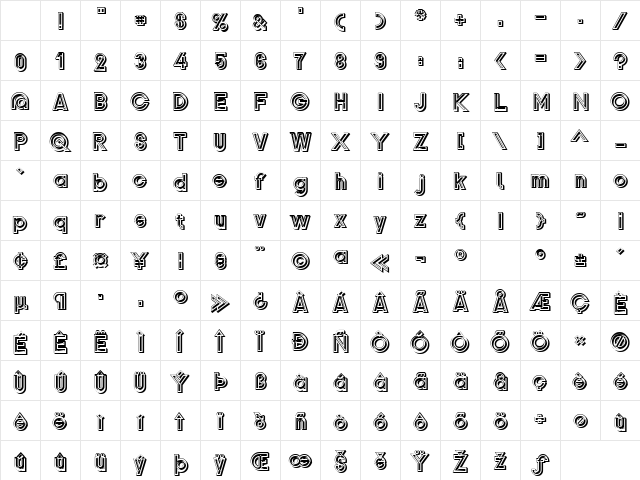
Complete Gondrin Regular glyph index. Displaying only characters natively supported by Gondrin Regular font.
Gondrin is a composed and adaptable typeface that performs quietly and consistently across a wide range of design contexts.